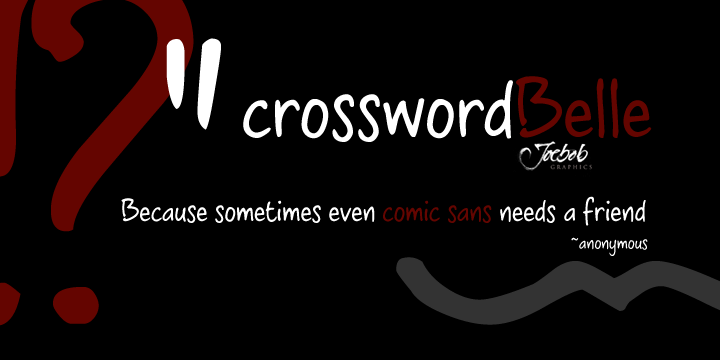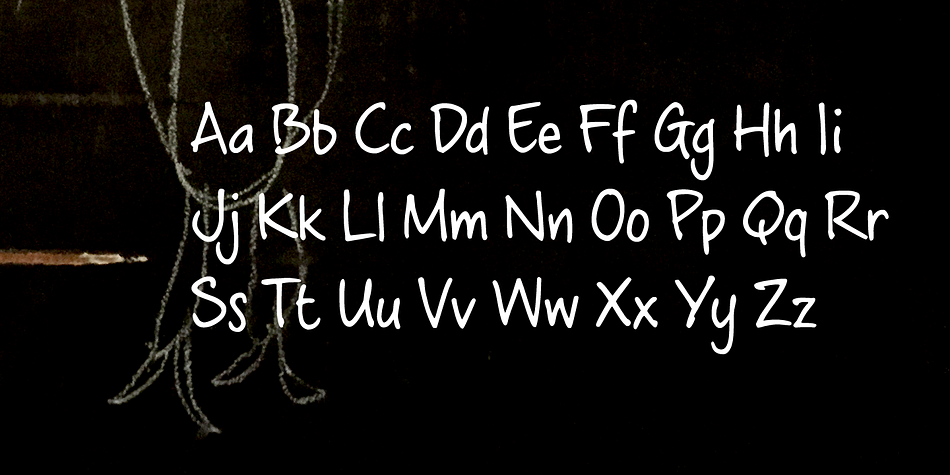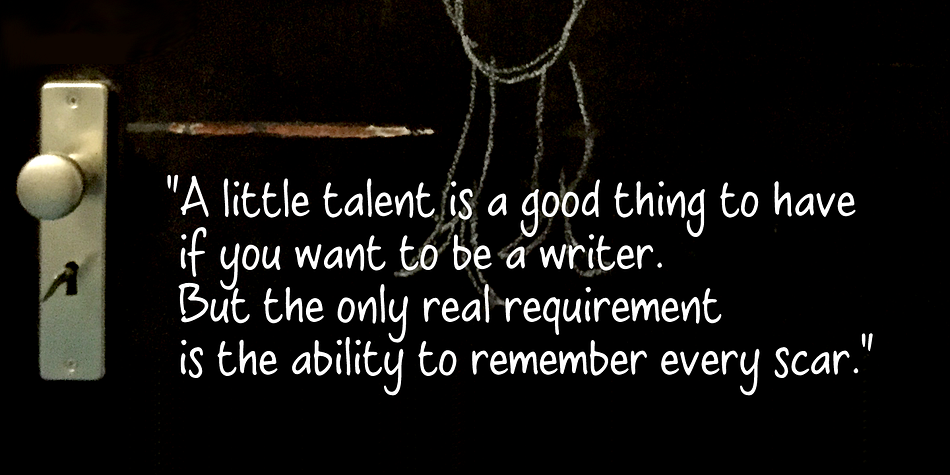
Crossword Belle is a hand drawn font published by JOEBOB Graphics.
A neat and clean-cut little sister for the grungy crosswordBill font.
Try CAPS only too!